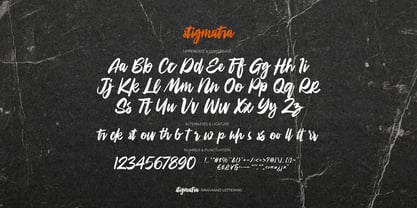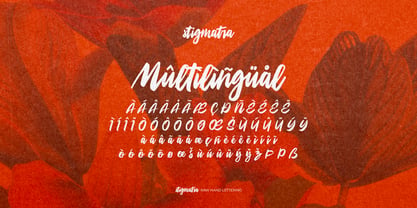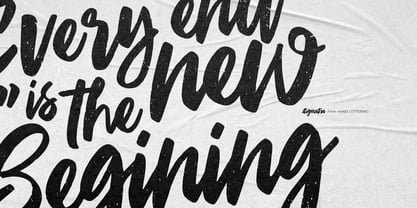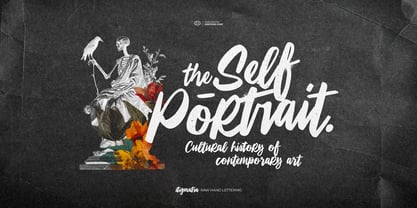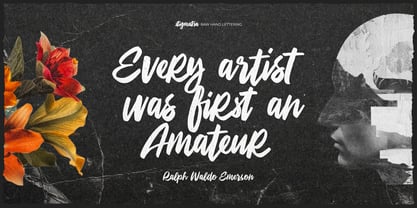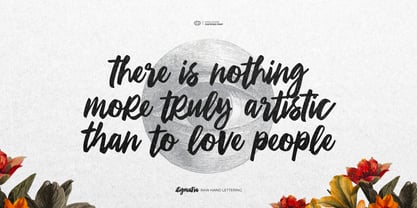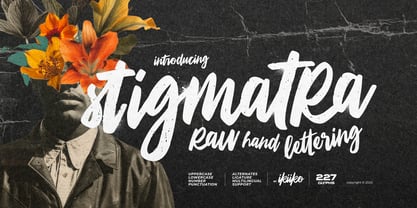
Stigmatra
by IKIIKOWRK
The Stigmatra Font Family was designed by Andhika Pradana and published by IKIIKOWRK. Stigmatra contains 1 styles. More about this family
Proudly Present Stigmatra - Raw Hand Lettering, created by ikiiko
Stigmatra is not average font—it’s a raw script style typeface that feels like it was torn from an artist’s sketchbook. With rough edges, organic flow, and wild watercolor lettering strokes, it’s made for creators who value expression over perfection. Each letter bursts with artsy movement, capturing the spirit of hand-painted brushwork and raw emotional energy.
This font brings an expressive, tactile quality to your designs—ideal for galleries, posters, packaging, editorials, or any project craving a touch of painted imperfection. Whether you're designing for print or digital, Stigmatra adds that rough beauty that feels both human and untamed.
• Uppercase & Lowercase
• Numbers & Punctuation
• Alternates & Ligature
• Multilingual Support
Designers: Andhika Pradana
Foundry: IKIIKOWRK